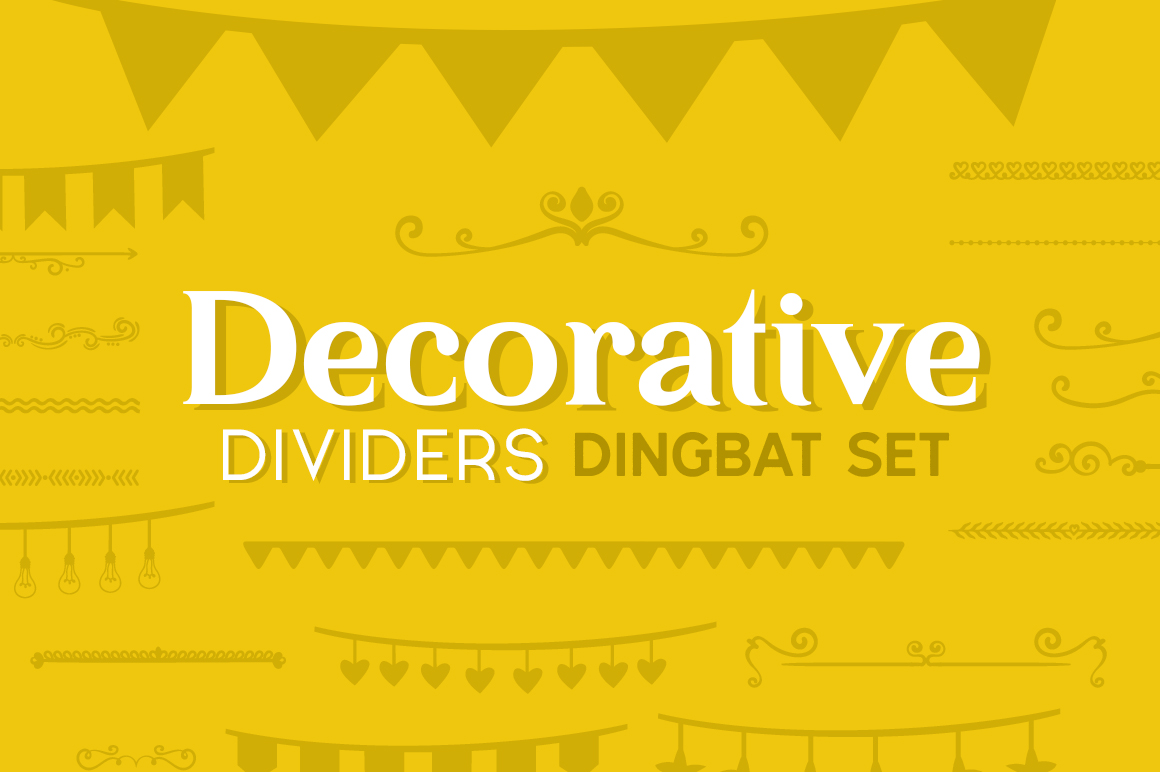
The Decorative Dividers Dingbat Set is a set of 48 stunning dividers that can be used to add a touch of style and elegance to your documents, presentations, and other creative projects. The dividers are all high-quality and well-designed, and they come in a variety of different styles, including geometric, floral, and abstract.
The Decorative Dividers Dingbat Set is a great way to add visual interest to your documents and presentations. The dividers can be used to separate different sections of text, to create headers and footers, or to simply add a touch of style. The dividers are also easy to use. You can simply copy and paste them into your document or presentation, and they will automatically resize to fit your text.
The Decorative Dividers Dingbat Set is a versatile and useful tool that can be used in a variety of different projects. The dividers are perfect for use in:
- Documents: The dividers can be used to separate different sections of text in documents, such as chapters, sections, or paragraphs.
- Presentations: The dividers can be used to create headers and footers in presentations, or to simply add a touch of style.
- Web pages: The dividers can be used to create dividers between different sections of a web page, or to simply add a touch of style.
- Emails: The dividers can be used to create dividers between different sections of an email, or to simply add a touch of style.
- And more!
- The set includes 48 dividers in a variety of styles.
- The dividers are all high-quality and well-designed.
- The dividers are easy to use.
- Use the dividers in moderation. Too many dividers can be overwhelming.
- Use the dividers to create a sense of hierarchy. The dividers can be used to separate different sections of text, creating a sense of order and organization.
- Experiment with different colors and layouts. The dividers can be used to create a variety of different looks, so experiment with different colors and layouts to see what works best for your project.